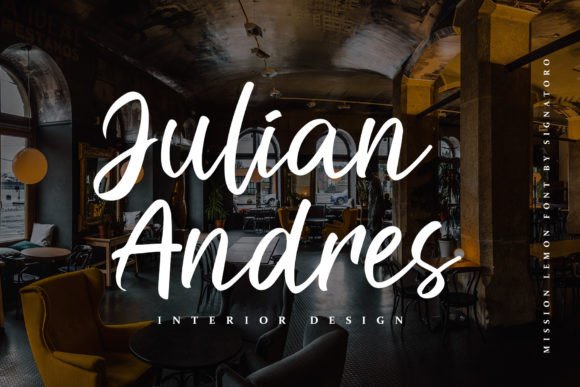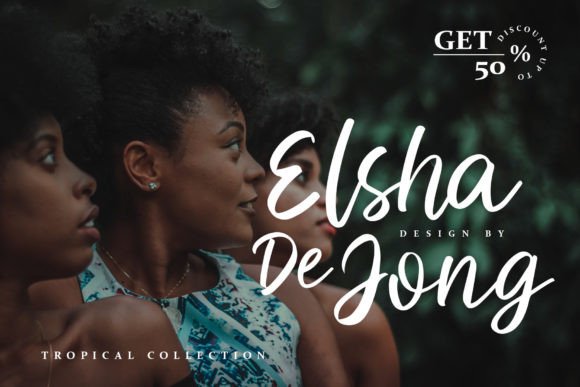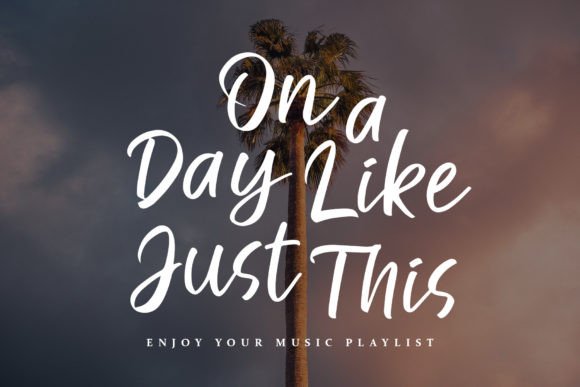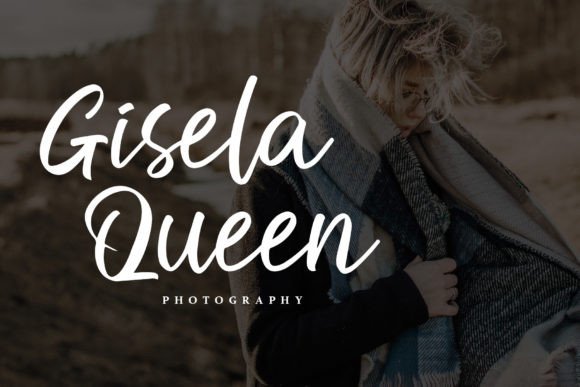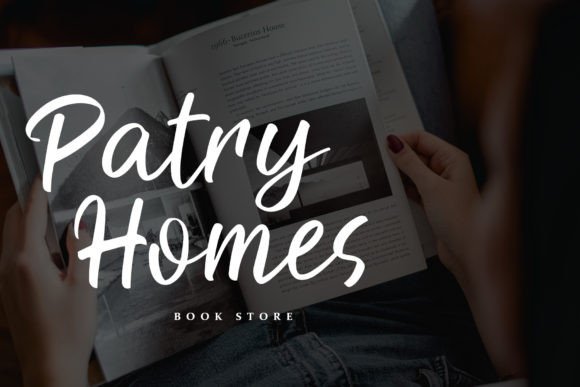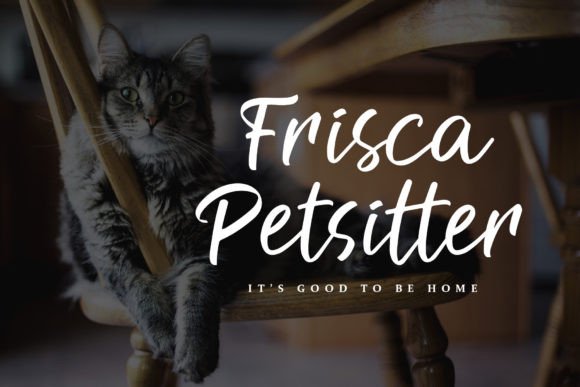
Introduction to Mission Lemon Font
Have you ever been working on a creative project, pouring your heart and soul into it, only to feel like something’s missing? Maybe it’s the perfect font to give your design that extra oomph. That’s where Mission Lemon Font comes in – a simple handwritten font that’s about to revolutionize your design game.
With its unique look and modern style, Mission Lemon Font is the perfect design resource for any creative project. Whether you’re designing logos, branding, print media, social media posts, or even wedding invitations, this font will make them stand out from the crowd. And the best part? It’s available for free download, making it an accessible high-quality asset for designers of all levels.
Key Features of Mission Lemon Font
• High-quality design resource perfect for creative projects, available as a free download.
• Transparent background, allowing for seamless integration with any design or image.
• Includes a range of characters and symbols, making it suitable for both personal and commercial use.
• Unique, modern design with a clean and minimalist aesthetic.
• High-resolution fonts, ideal for printing and digital applications.
Honest Review: Mission Lemon Font
As a designer, I’m always on the lookout for high-quality design resources that can elevate my creative projects. Recently, I came across the Mission Lemon Font, and I must say, it’s been a game-changer. With a transparent background and crisp lines, this font is perfect for adding a touch of sophistication to any design.
Here are some things that work well with the Mission Lemon Font:
• ✨ High-quality design: The font is well-crafted and looks great on any screen.
• ✨ Versatile: Mission Lemon Font is suitable for a wide range of creative projects, from branding to digital design.
• ⚠️ Limited font styles: Mission Lemon Font comes in a limited number of styles, which might not be suitable for designers who require a wide range of font variations.
• ⚠️ Not suitable for complex text: Due to its simple design, Mission Lemon Font might not be the best choice for complex text or large blocks of text.
Overall, I’m impressed with the Mission Lemon Font, and I would definitely recommend it to designers who are looking for a high-quality, free design resource.
Tips for Getting the Most Out of Mission Lemon Font
To get the most out of Mission Lemon Font, use it on a transparent background to give your design a clean and modern look. Experiment with different font sizes and styles to add visual interest to your creative project.
Mission Lemon Font is ideal for use in logos, branding materials, and other creative projects that require a clean and modern design aesthetic. Its high-quality design makes it perfect for use in various design applications, including Canva, Adobe Photoshop/Illustrator, and PowerPoint/Word.
Pacifico compares well to Mission Lemon Font in terms of its high-quality design, but it has a more classic, timeless feel. While Mission Lemon Font is bolder and more playful, Pacifico is softer and more refined.